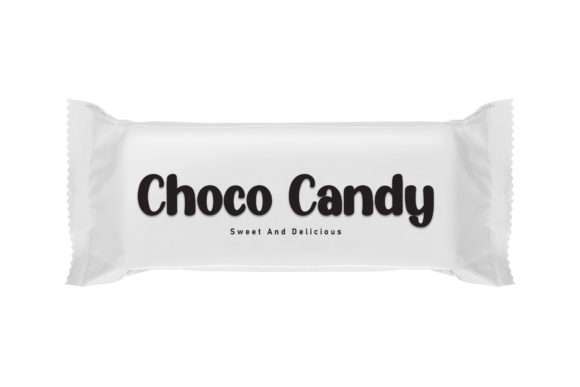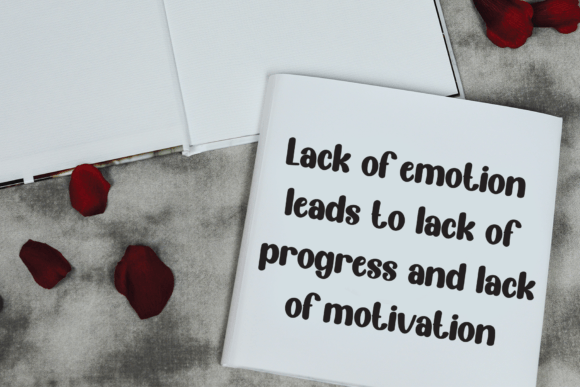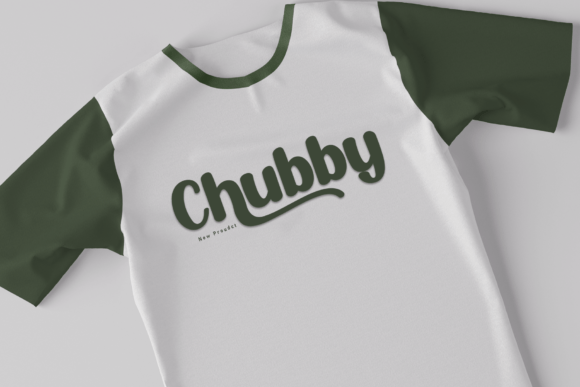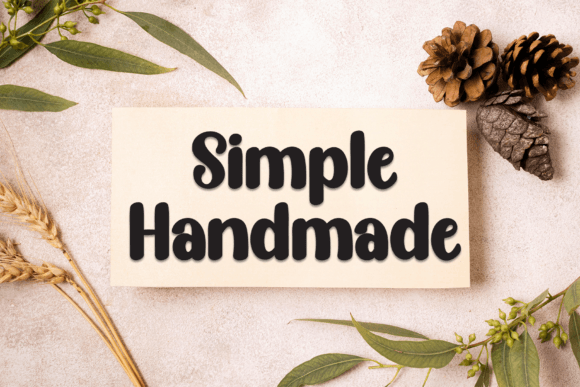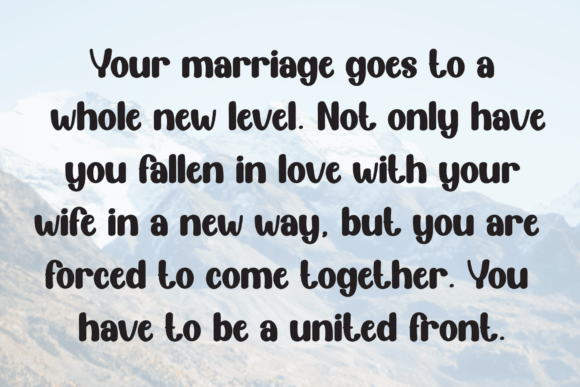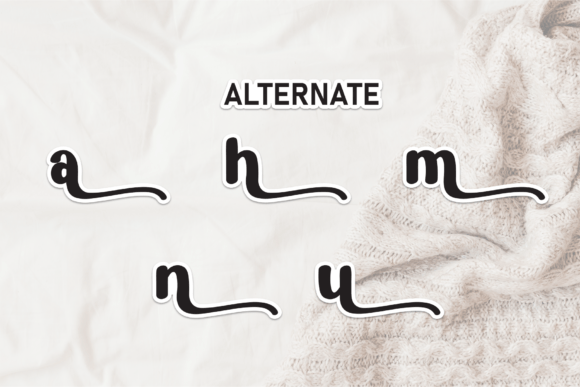
The Perfect Cozy Touch for Your Designs
Have you ever found yourself rummaging through your sketchbook, desperate to capture the essence of a handwritten note from a loved one? The imperfections, the quirks, the way the pen danced across the paper – it’s a moment that sparks creativity and sets our imagination ablaze. For designers, that feeling is what drives us to create something truly special.
Enter Blanket Font, a sweet and friendly handwritten font that’s about to become your new best friend. With its natural and unique style, Blanket Font is the perfect addition to any design project. Whether you’re crafting a wedding invitation, a children’s book, or a social media post, Blanket Font adds a touch of warmth and personality that’s hard to resist.
What makes Blanket Font truly valuable is its versatility – the only limit is your imagination! With Blanket Font, you can bring your most whimsical ideas to life, and we can’t wait to see what you create.
Blanket Font Key Features
- Font Family: Blanket Font offers a range of font styles, including serif, sans-serif, and script fonts, catering to various design needs.
- Character Set: The font includes a comprehensive character set, covering Latin, Cyrillic, and Greek alphabets, as well as punctuation and symbols.
- Unique Characteristics: Blanket Font features a distinctive, hand-drawn style with subtle texture and organic feel, adding a touch of warmth and personality to designs.
Designer Review: Blanket Font
As a designer, I was excited to dive into the Blanket Font and see what it had to offer. Here’s my honest review:
- The bold and playful feel of the font is a great addition to any project. It’s perfect for creating eye-catching headlines or titles.
- The versatility of the font is impressive. It can be used for both digital and print projects, making it a great all-around choice.
- The font’s unique quirks add a touch of personality to any design, making it stand out from more traditional fonts.
- The font’s bold weight can be overwhelming at times, making it difficult to read in certain contexts.
- The font’s uniqueness can also be a limitation, as it may not be suitable for projects where a more traditional or conservative font is preferred.
Overall, I think the Blanket Font is a great addition to any designer’s toolkit. While it may have some limitations, its unique personality and versatility make it a great choice for projects where a bold and playful feel is desired.
Getting the Most Out of Blanket Font
To get the most out of Blanket Font, follow these tips:
- Experiment with different font sizes and styles.
- Combine Blanket Font with other fonts for a unique look.
- Use it for creative projects, such as posters, flyers, or social media graphics.
Blanket Font is commonly used for:
- Designing posters and flyers for events or promotions.
- Creating social media graphics and ads.
- Developing branding materials, such as logos and business cards.